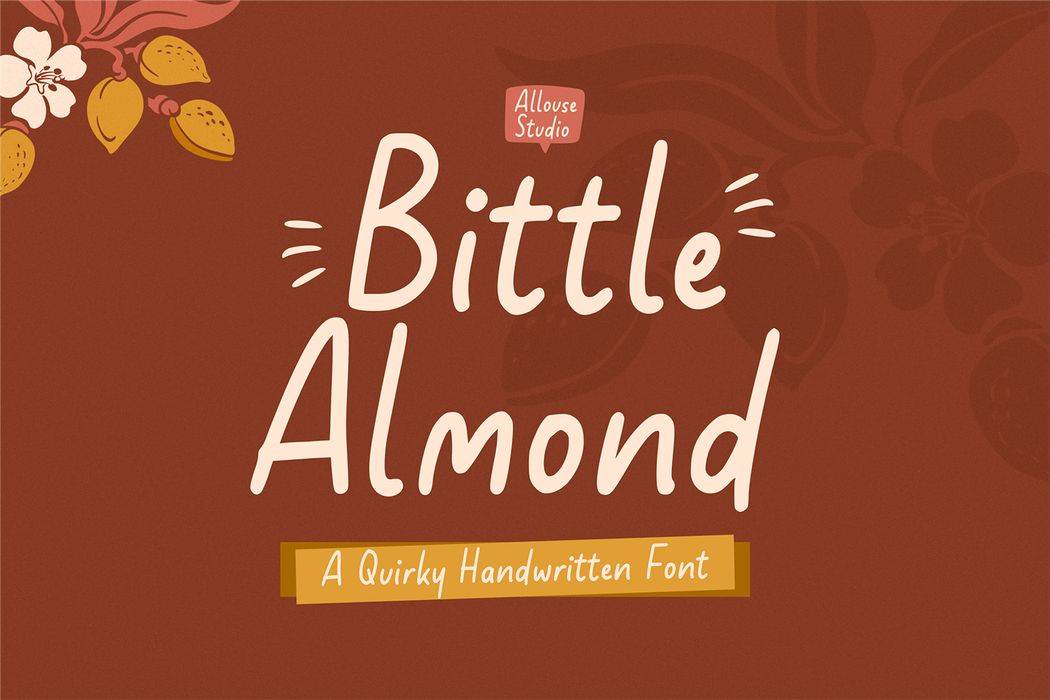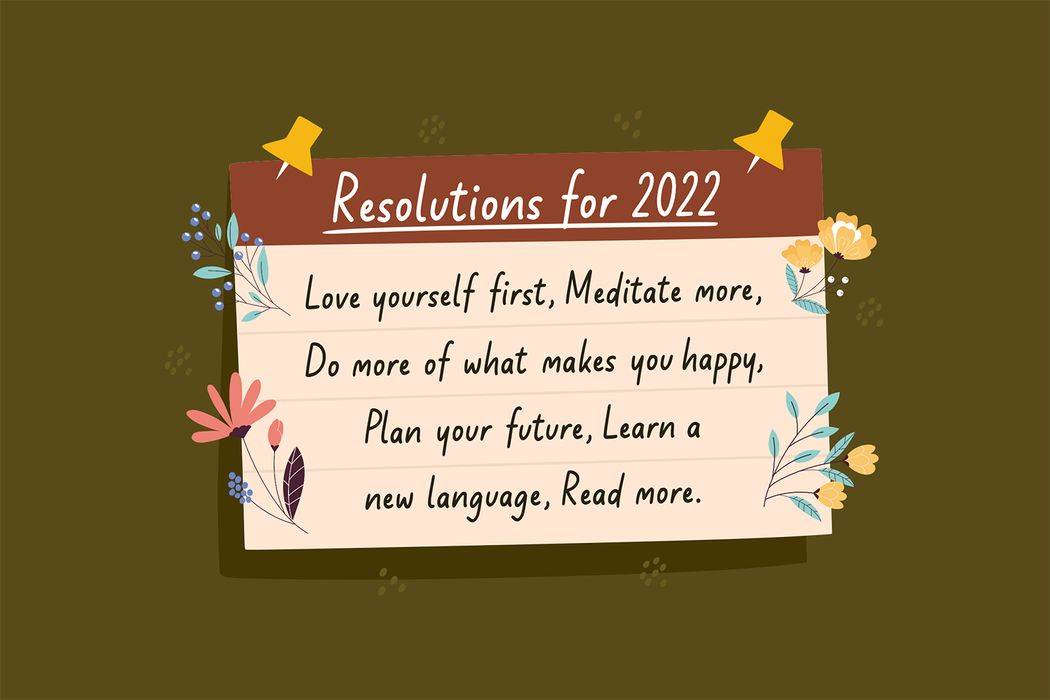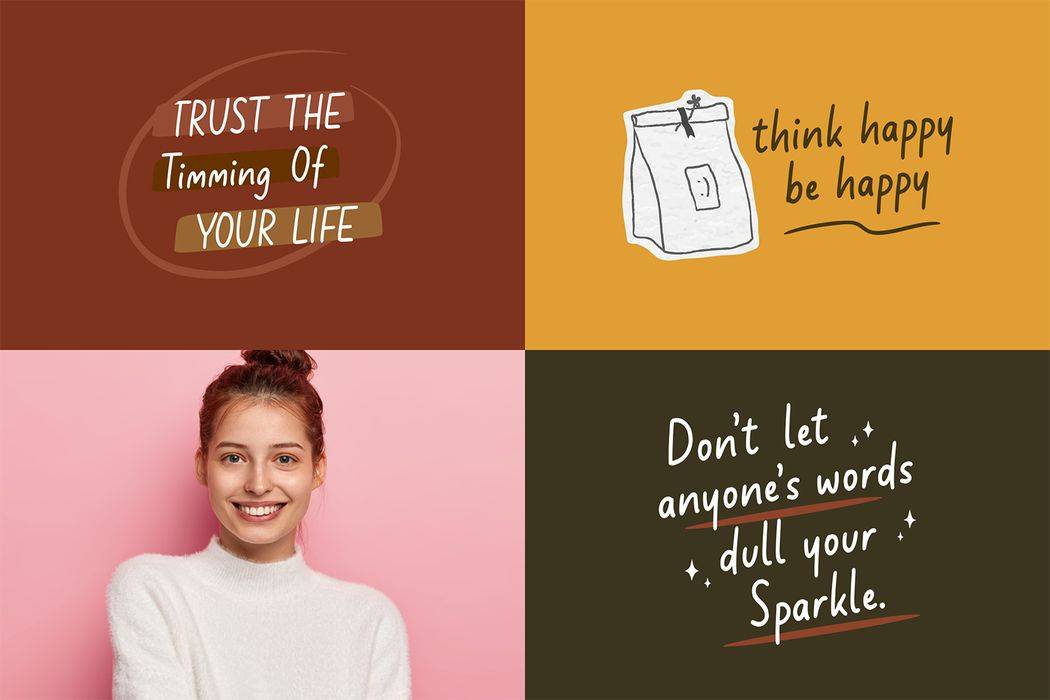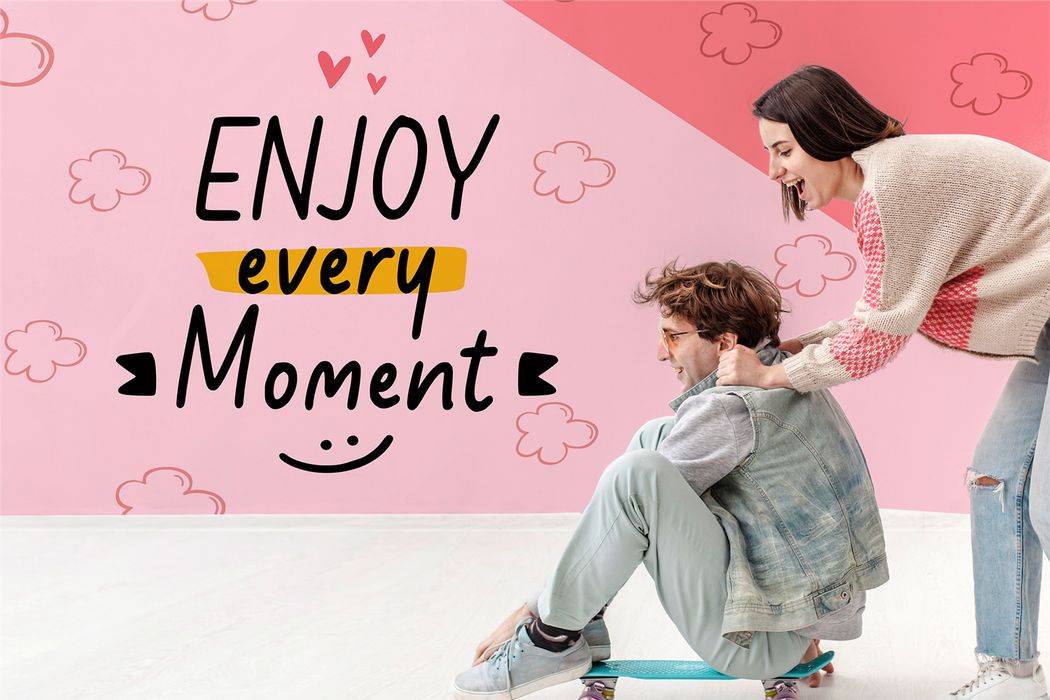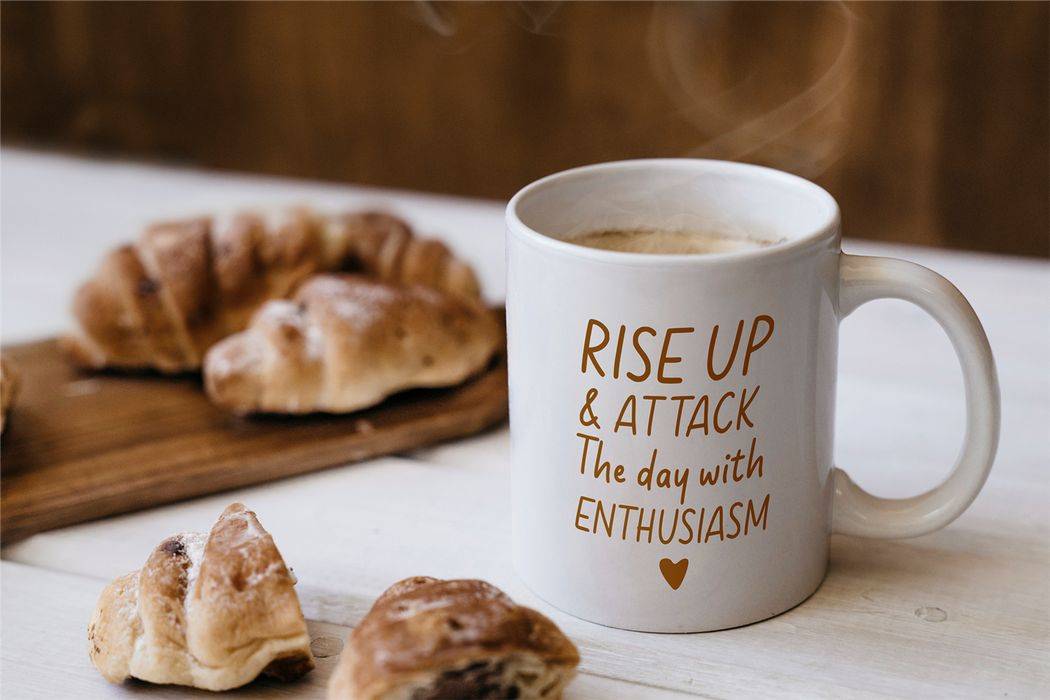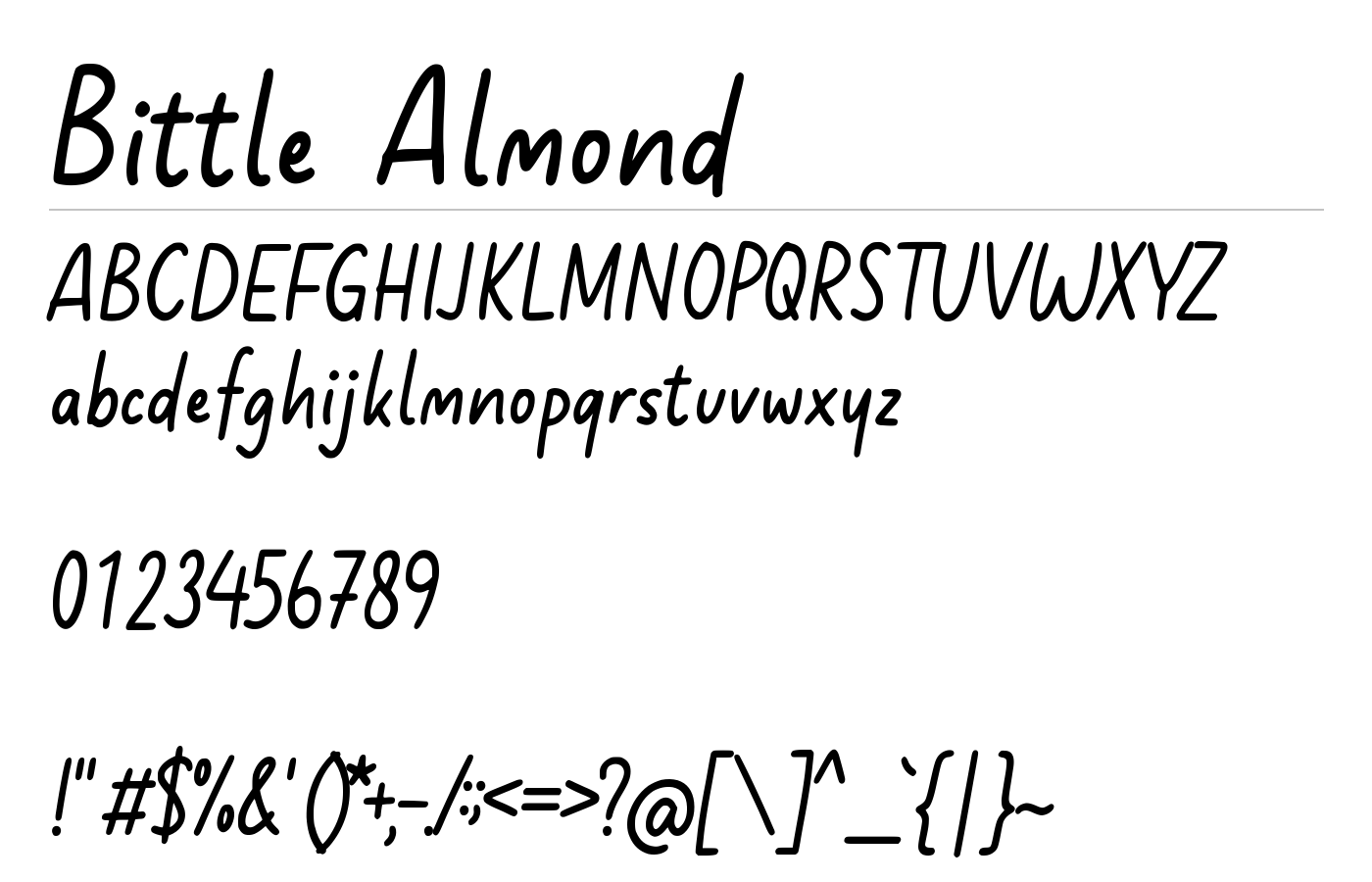
Bittle Almond is a playful, handwritten sans serif font with a casual and friendly vibe. Its lightly condensed letters feature smooth, organic strokes and a moderate x-height, making it suitable for informal branding, social media graphics, and personal projects that want to feel approachable and warm. This font works especially well in headlines and logos where a relaxed, human touch is desired.
Bittle Almond Font
About Bittle Almond Font
| Font family | Bittle Almond Font |